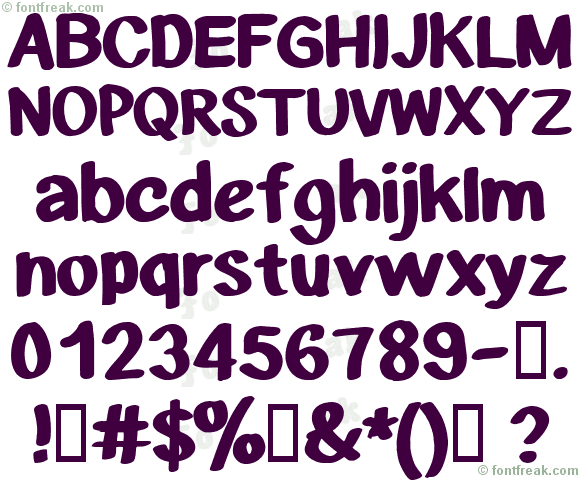
CF Rise of Nations Regular
About CF Rise of Nations Regular
CF Rise of Nations Regular is a captivating display font designed by Cloutierfontes, characterized by its playful and bold aesthetic. This typeface falls into the category of decorative fonts, making it ideal for projects that require a touch of whimsy and creativity. The font features a medium stroke weight with rounded edges, providing a friendly and approachable feel. Its moderate contrast and well-balanced spacing enhance readability, while the slight irregularities in letterforms add a unique charm that sets it apart from standard typefaces.
This font is particularly well-suited for a variety of creative applications. It shines in contexts such as children's book covers, vibrant posters, and promotional materials for events like fairs or festivals. Additionally, CF Rise of Nations Regular can elevate restaurant menus, giving them a fun and inviting character that resonates with diners. Graphic designers and content creators will find it a valuable asset for crafting eye-catching social media graphics and branding elements.
In conclusion, CF Rise of Nations Regular stands out due to its unique blend of playfulness and readability. Its distinctive style invites creativity and engagement, making it a fantastic choice for those looking to make a lasting impression through their design work. Whether for professional or personal projects, this font brings a sense of joy and character that is hard to replicate.